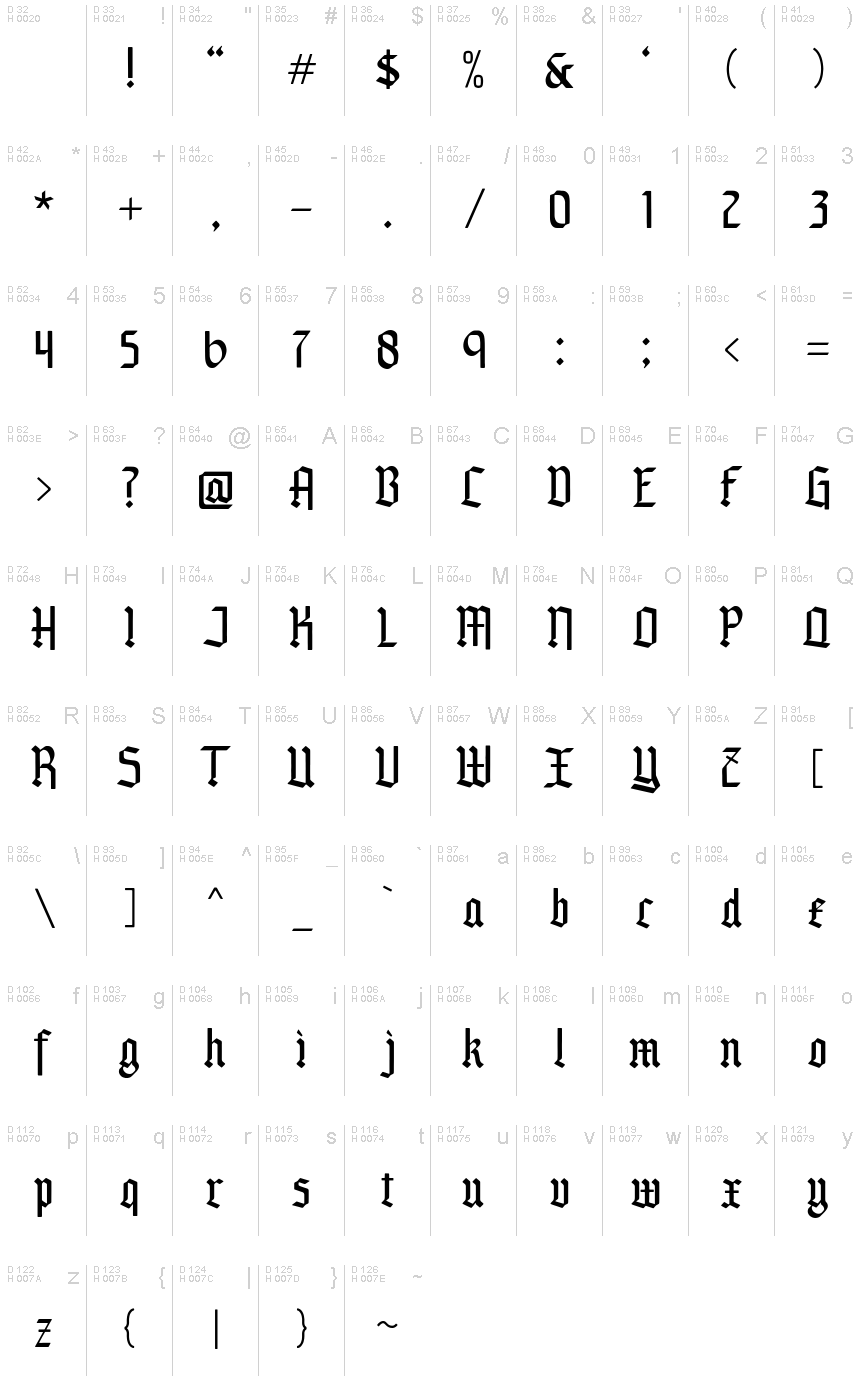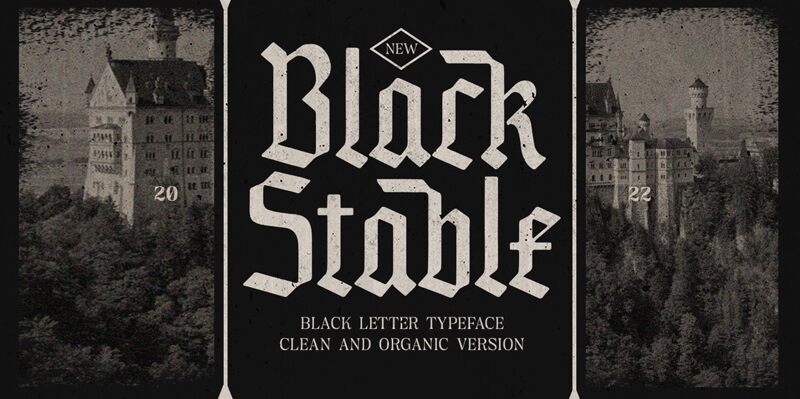
Black Stable is a captivating modern gothic font created by the talented designers at Letterhend Studio. With its striking condensed silhouette and robust, organic forms, this font exudes a sense of strength and timeless elegance. The distinct letter structures and sharp, angular terminals lend a powerful, yet refined aesthetic that immediately commands attention. Black Stable's versatile personality seamlessly blends traditional gothic influences with a contemporary, sophisticated flair.
This font's versatility makes it a compelling choice for a wide range of design projects. Its bold, attention-grabbing presence makes it well-suited for bold headlines, impactful branding, and eye-catching editorial pieces. Conversely, Black Stable's refined, polished qualities also allow it to work beautifully in more delicate applications, such as book covers, wedding invitations, and luxury product packaging. Truly a font of contrasts, Black Stable offers designers a dynamic tool to elevate their work with a captivating, memorable aesthetic.